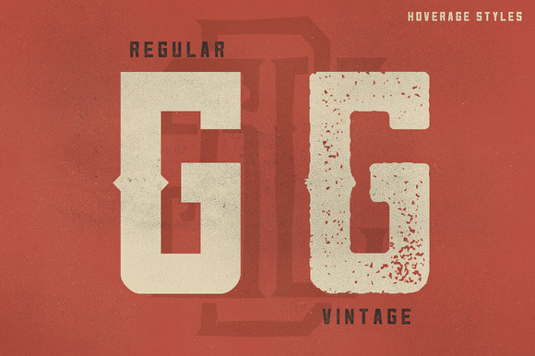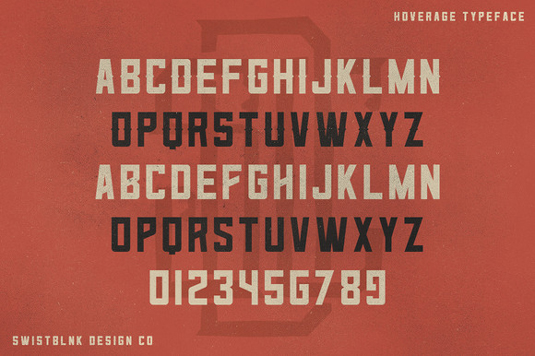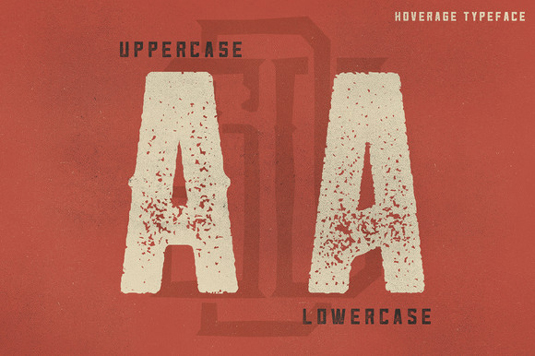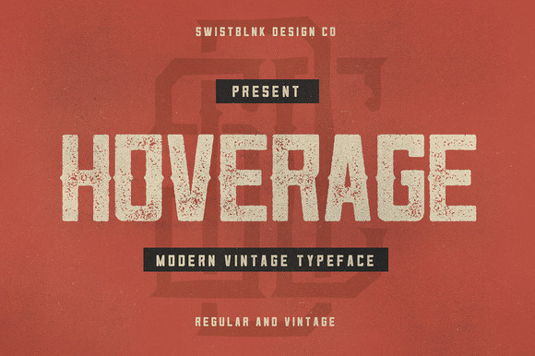
Font of the day: Hoverage
Every day we showcase the best fonts on the web. Today it's Hoverage by Agga Swist'blnk, which is totally free to download.
Hoverage by Agga Swist'blnk
If you're looking to add a bit of vintage style to your designs, then today's typeface, Hoverage, may be just what you're looking for. Created by graphic designer Agga Swist'blnk of Swistblnk Designs, Hoverage includes two fonts; regular and vintage, both of which are currently available to download for free over on Creative Market.